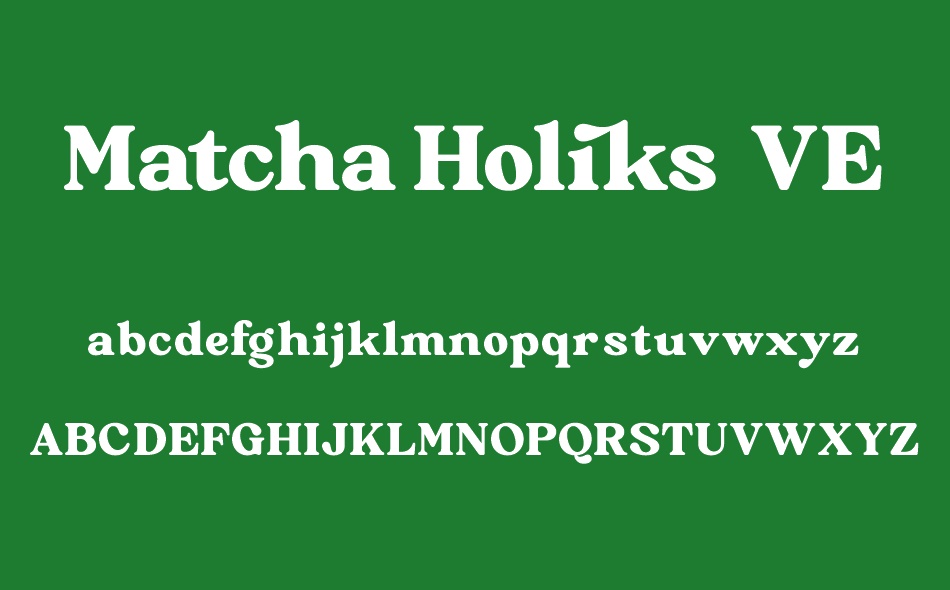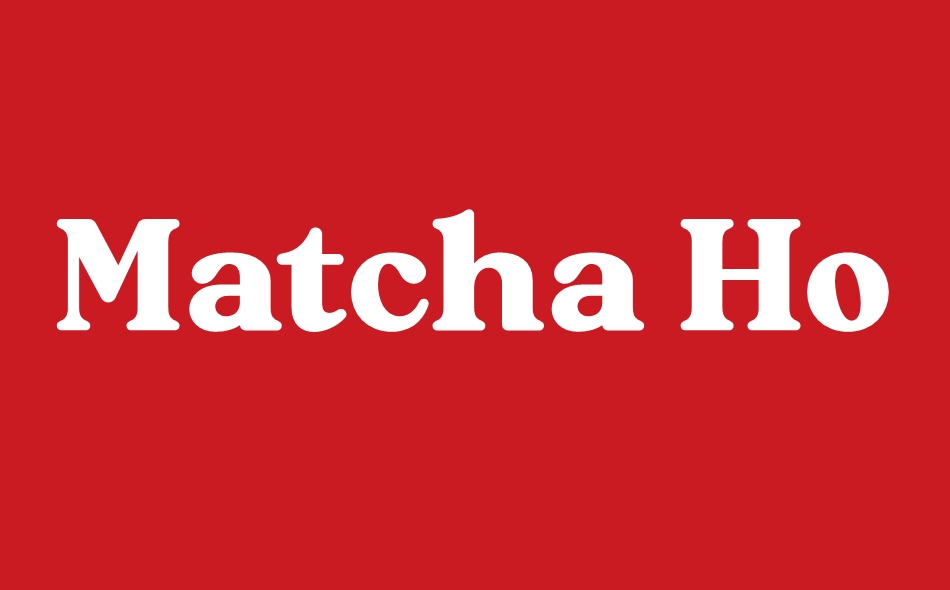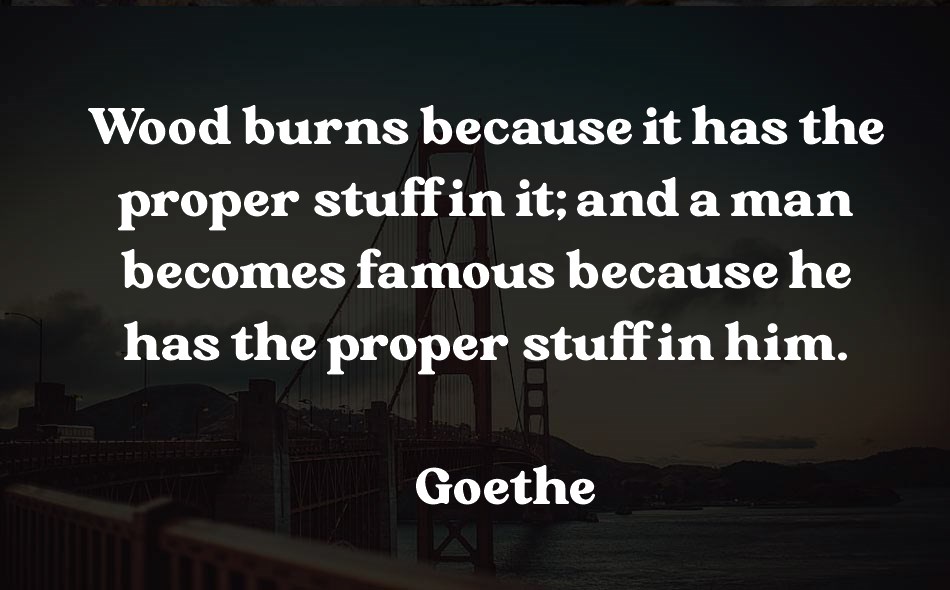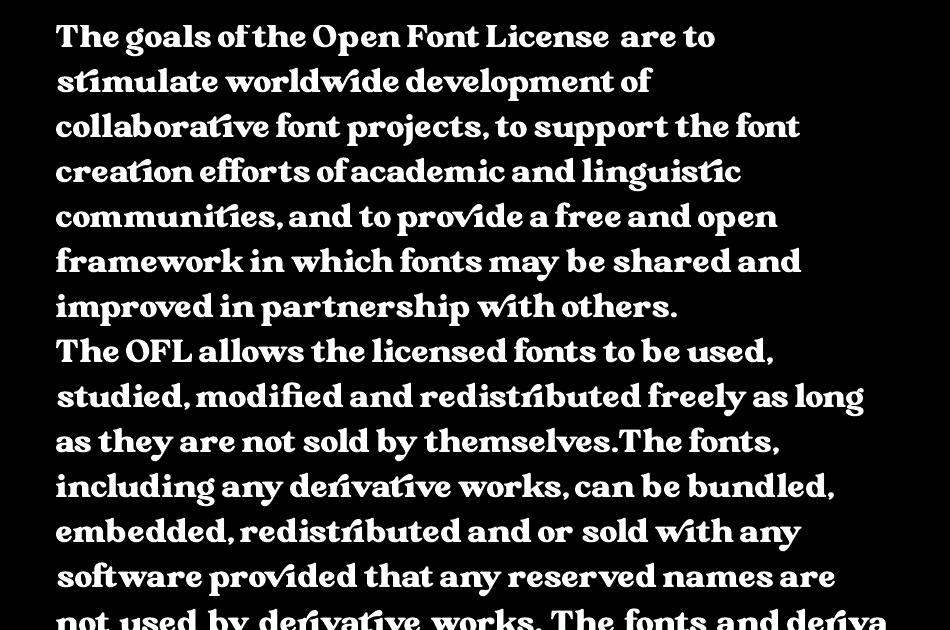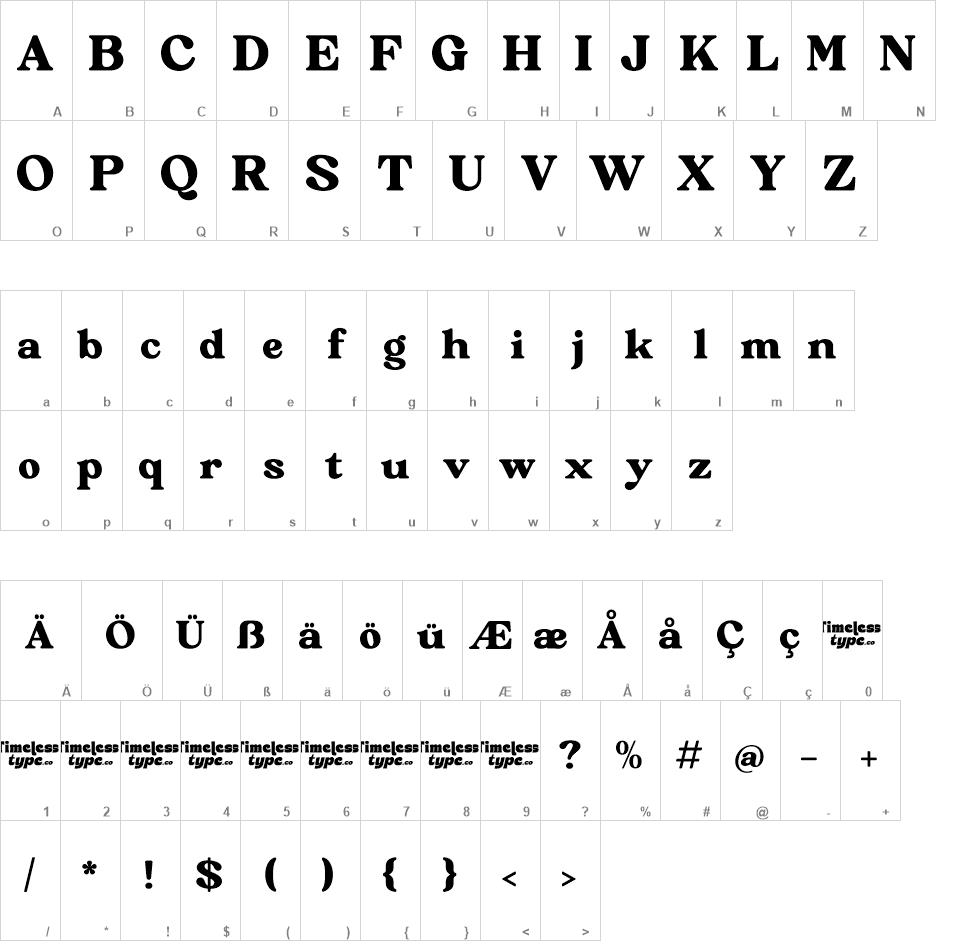
Matcha Holiks font
Matcha Holiks - Groovy Serif Display
Inject instant personality into your design arsenal with Matcha Holiks - Groovy Serif Display, the ultimate font for authentic vintage flair. This bold, high-contrast display typeface masterfully blends 70s nostalgia with modern typographic precision. Its distinctive, rounded serifs and organically flowing letterforms create a wonderfully expressive visual statement, demanding attention at larger sizes. It is the perfect solution for designers seeking an aesthetic that is both playful and profoundly impactful in display settings.
Unlock limitless creative potential through the massive 440-glyph set, featuring 22 ligatures and 88 stylistic alternates. These robust OpenType features allow for truly bespoke lettering, enabling designers to craft complex, custom looks with ease and avoiding repetitive character forms. With its extensive multilingual support, Matcha Holiks - Groovy Serif Display adapts seamlessly across global markets, making it incredibly versatile for international projects and diverse localization needs.
Elevate your brand with unmistakable style, utilizing this typeface's inherent confidence and unique rhythm. Matcha Holiks - Groovy Serif Display is perfectly suited for bold luxury branding, artisanal food and beverage packaging, retro poster design, and eye-catching editorial headlines. Its warm, inviting curves make it ideal for products that need a touch of vintage sophistication and memorable shelf appeal, ensuring your visuals cut through market clutter.